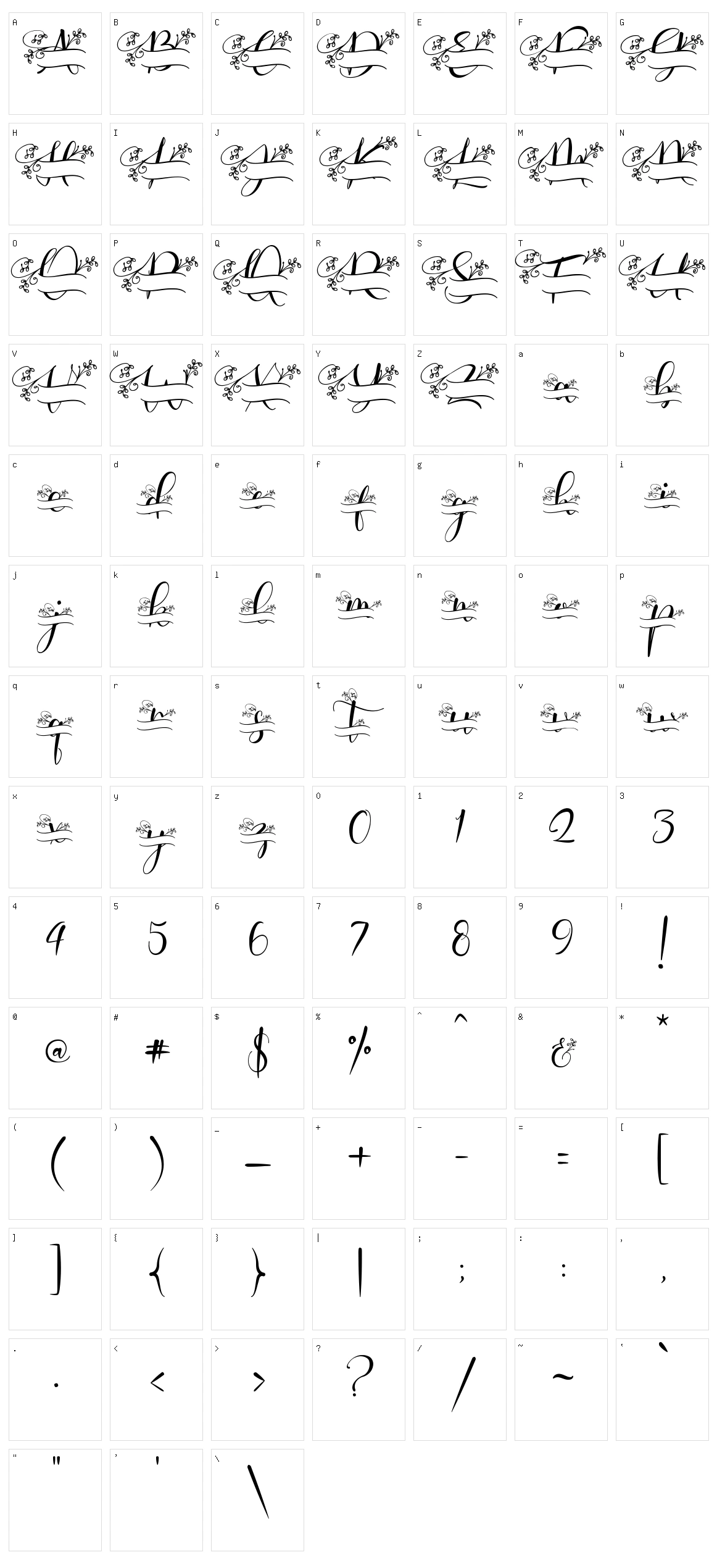
The free font Aqille Monogram is carefully designed by Creaditive Design, showcasing a thoughtful balance of creativity and usability and falls under the Initials font style. When you download the ZIP file, it contains only 94.94 KB of font files, making it lightweight and quick to download. Please review the license details below to understand permitted usage and distribution rights. If license information is not available, we recommend using this font for personal projects only or contacting the author directly for commercial usage permissions.